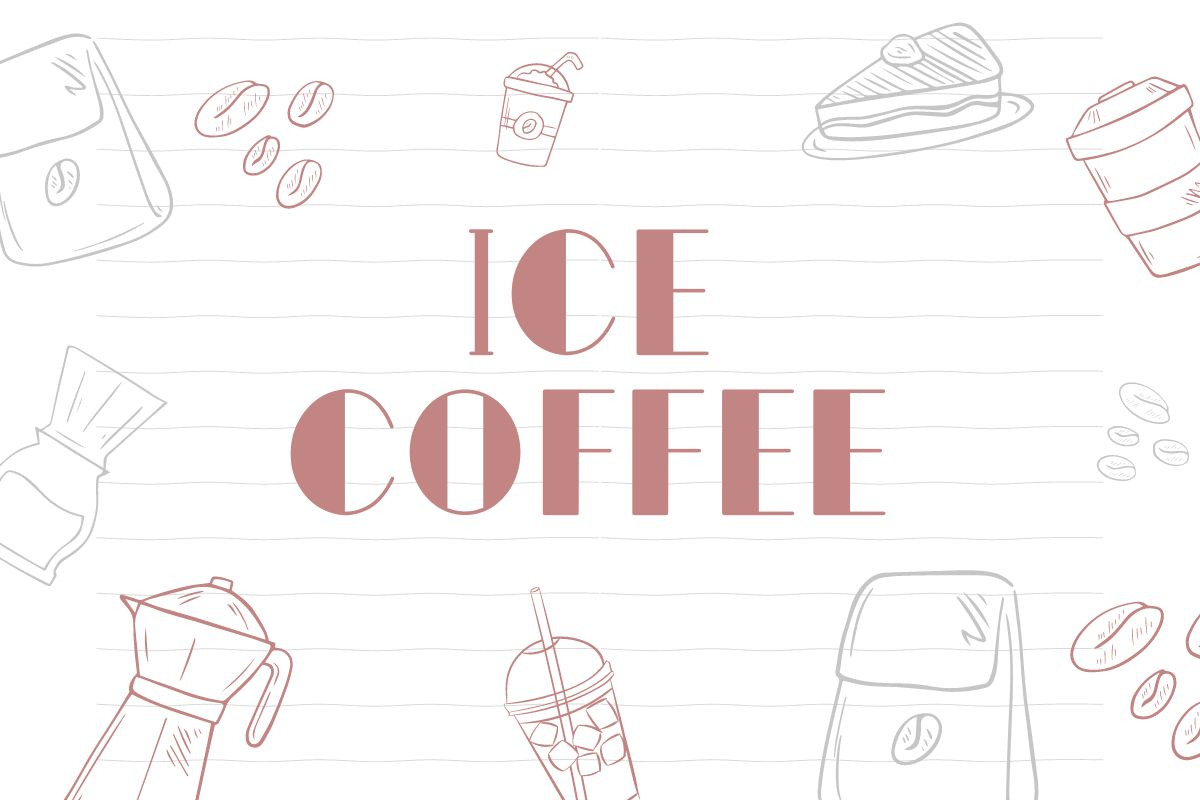
Ice Coffee Handwriting Font
Ice Coffee is a handwritten font that can be used within your documents for commercial and personal use! We design our fonts to have a simple.
This fonts include capital/lowercase letters and basic symbols.